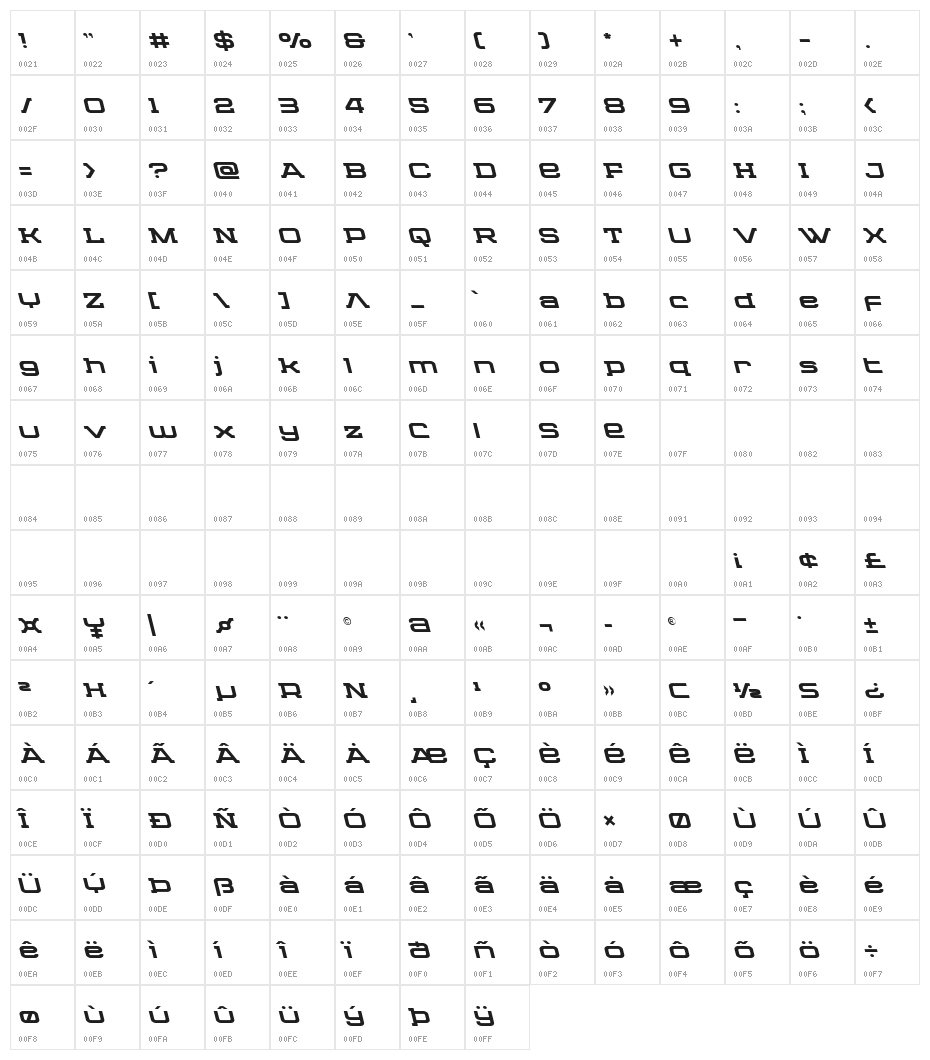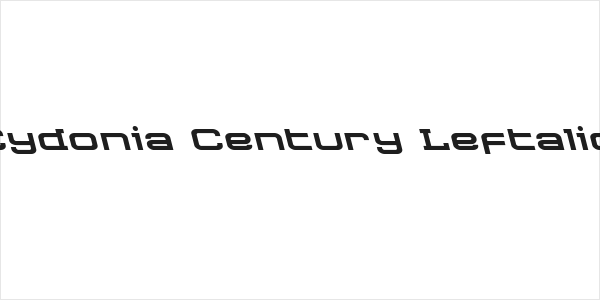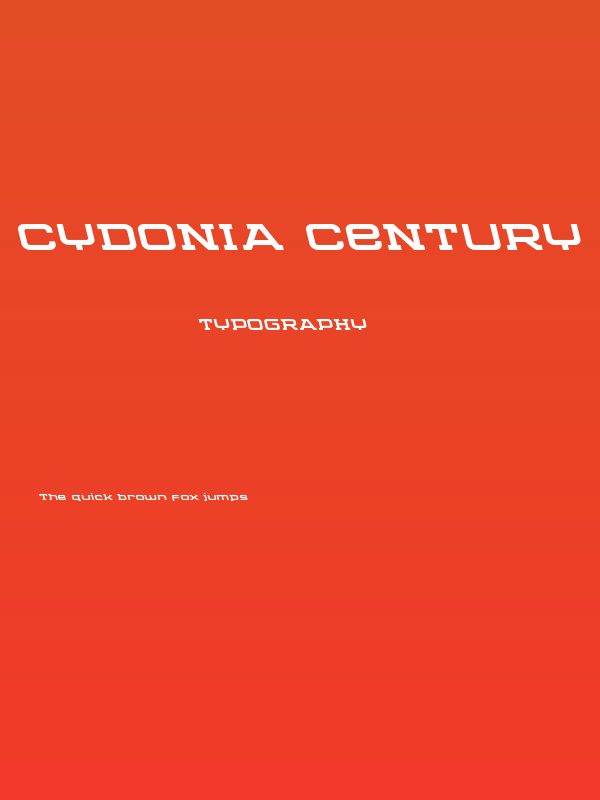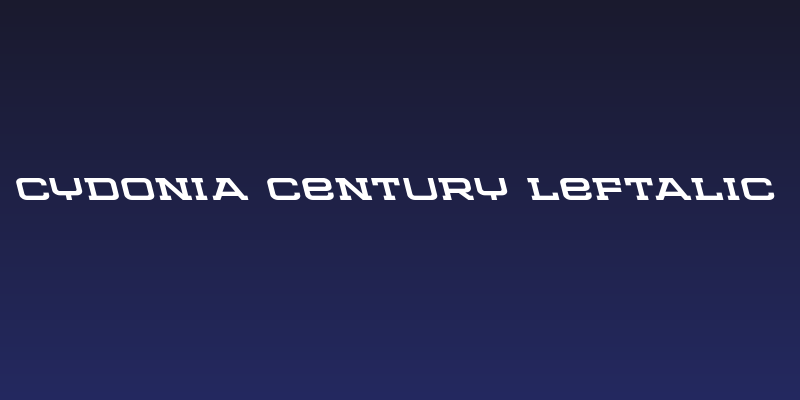
Cydonia Century Leftalic Font
Cydonia Century Leftalic Description
This font features a bold and futuristic design with a distinct geometric structure. The uppercase and lowercase letters exhibit a consistent angular style, giving it a modern and tech-inspired appearance. The numerals and special characters maintain this aesthetic, ensuring uniformity across all glyphs. The font's sharp edges and clean lines make it ideal for projects that require a contemporary and dynamic look. Its unique style is both eye-catching and versatile, suitable for a variety of creative applications.
| Proposed Projects | Ideal for technology branding, sci-fi themed projects, video game titles, and modern advertising campaigns. |